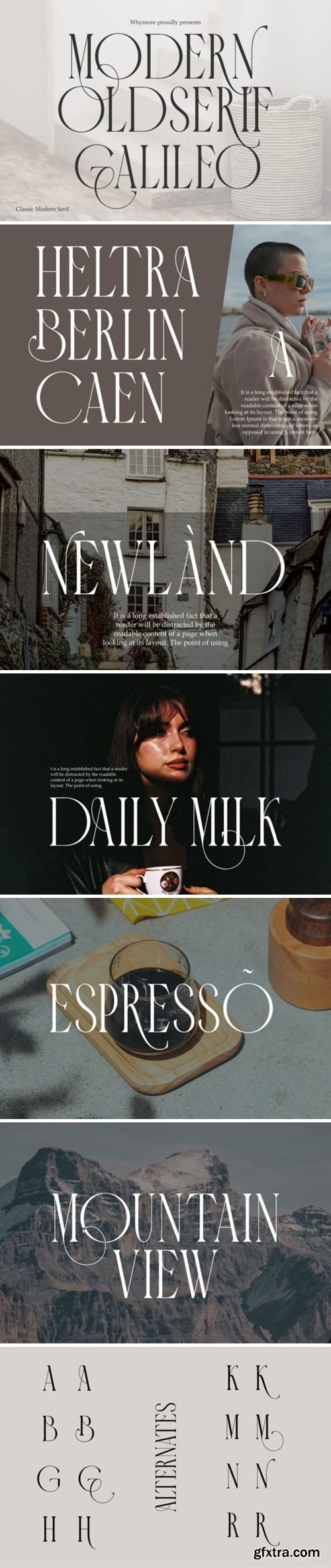
伽利略字体
Galileo is an elegant serif font, that features a very delicate and classy look. Not too thin and not too thick, balanced and varied, Florania was designed to enhance the beauty of your projects.